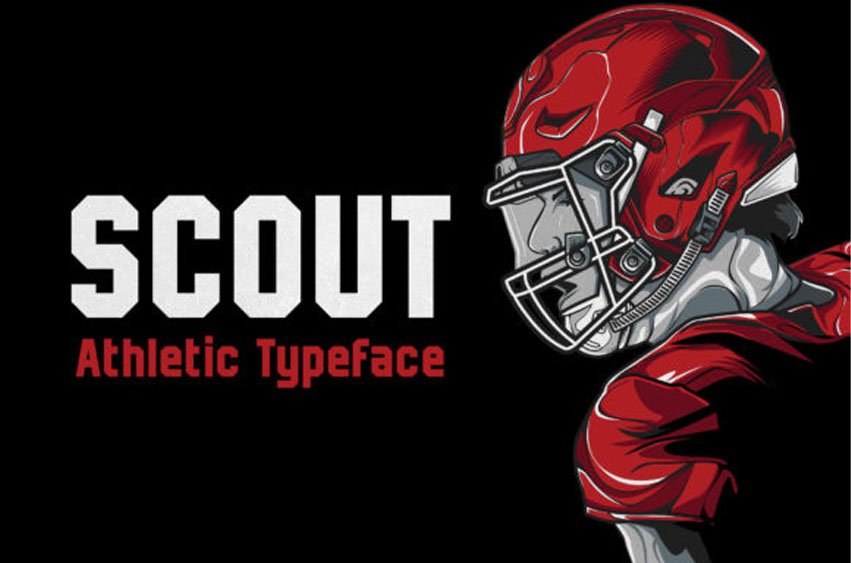
Scout Typeface Font is an incredibly cool and bold display font.
It has a modern yet whimsical style and it will undoubtedly immerse your designs into a magical world.